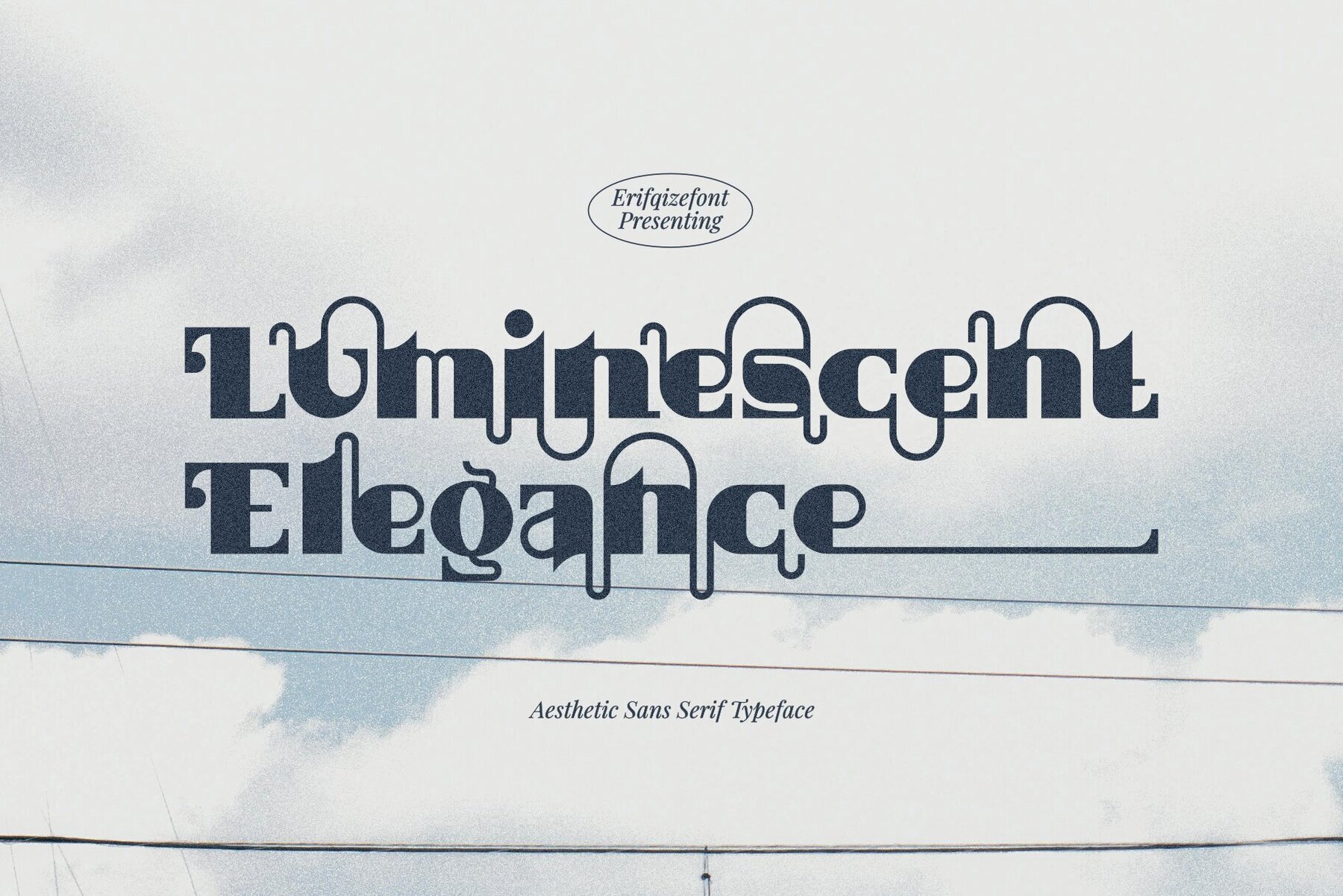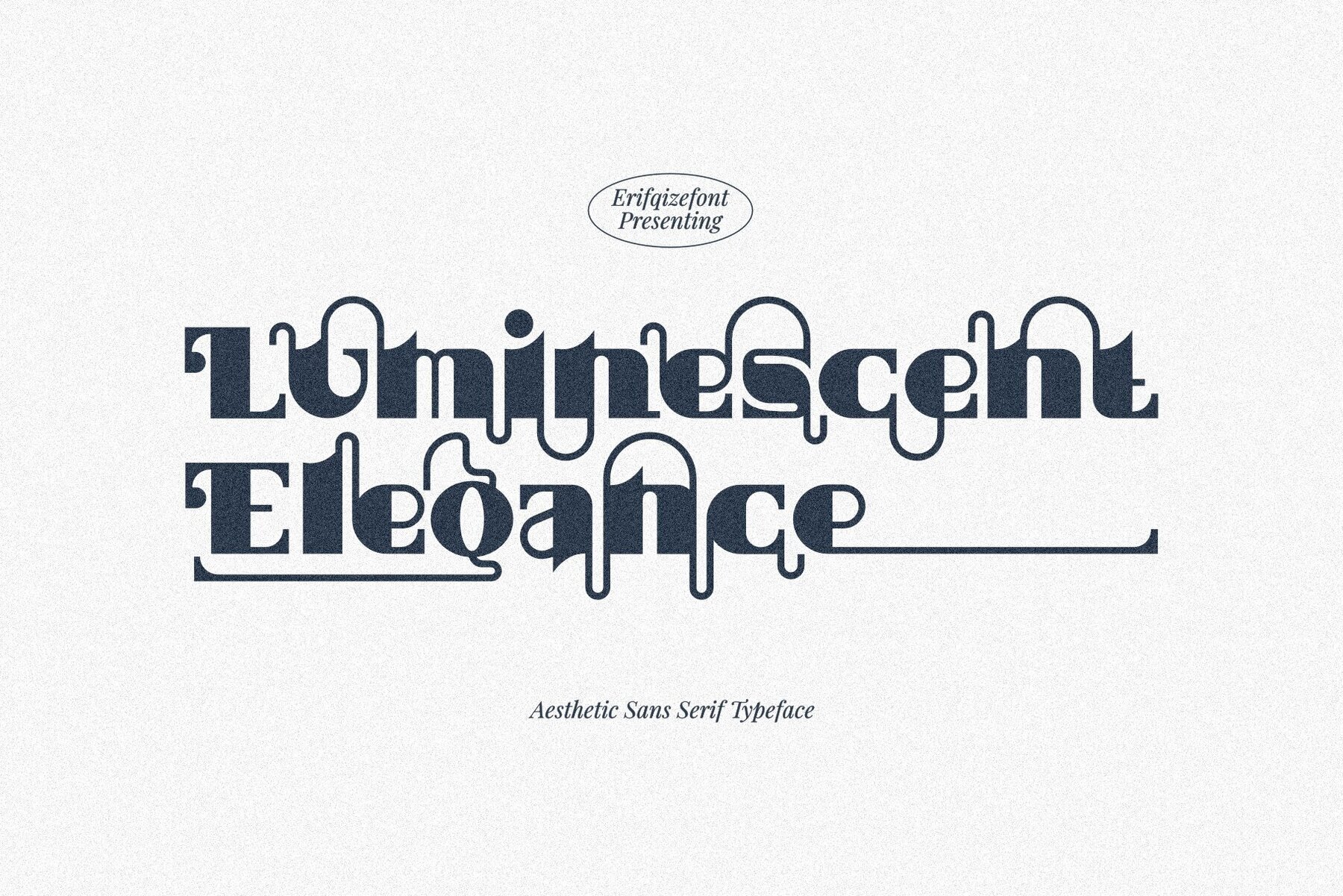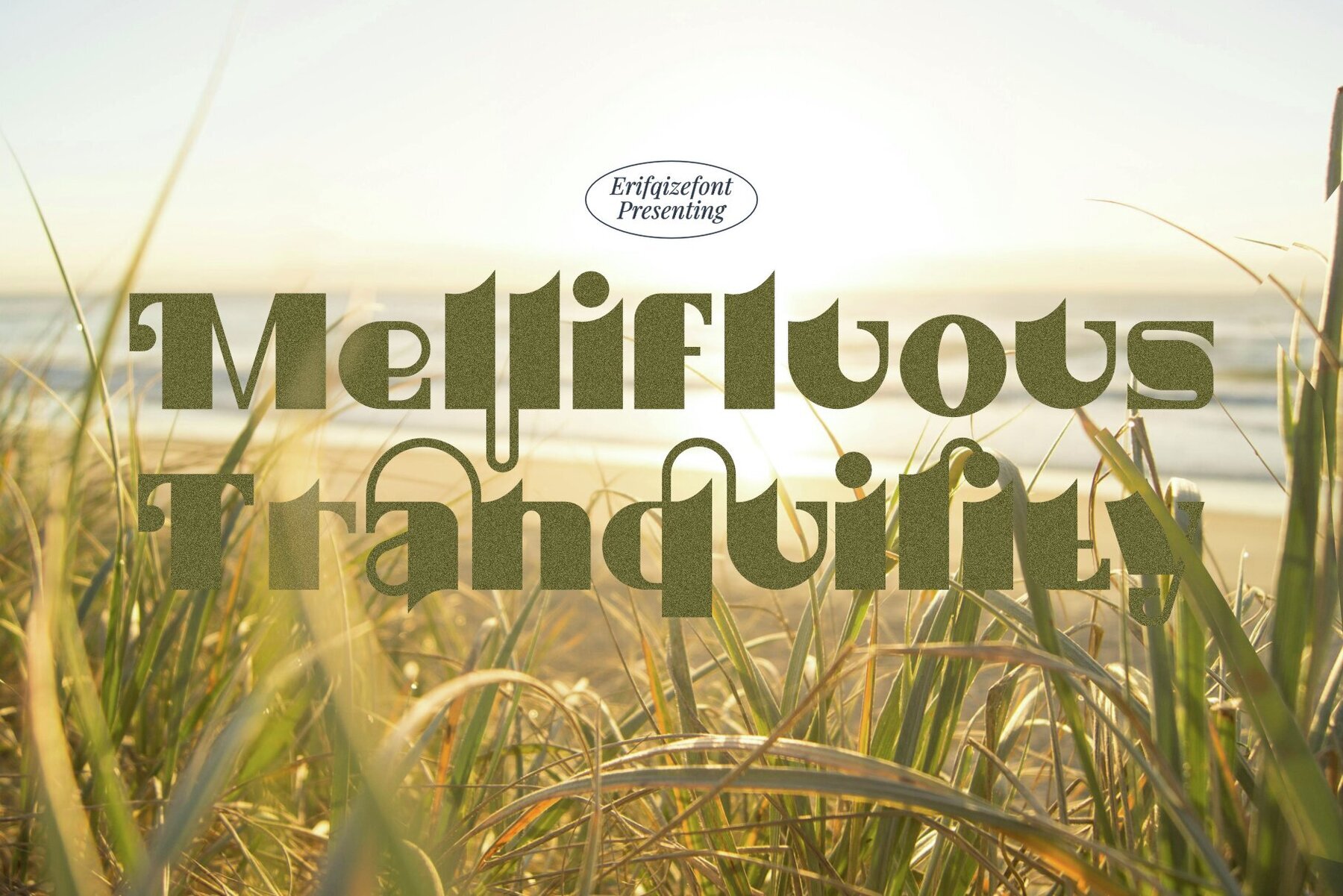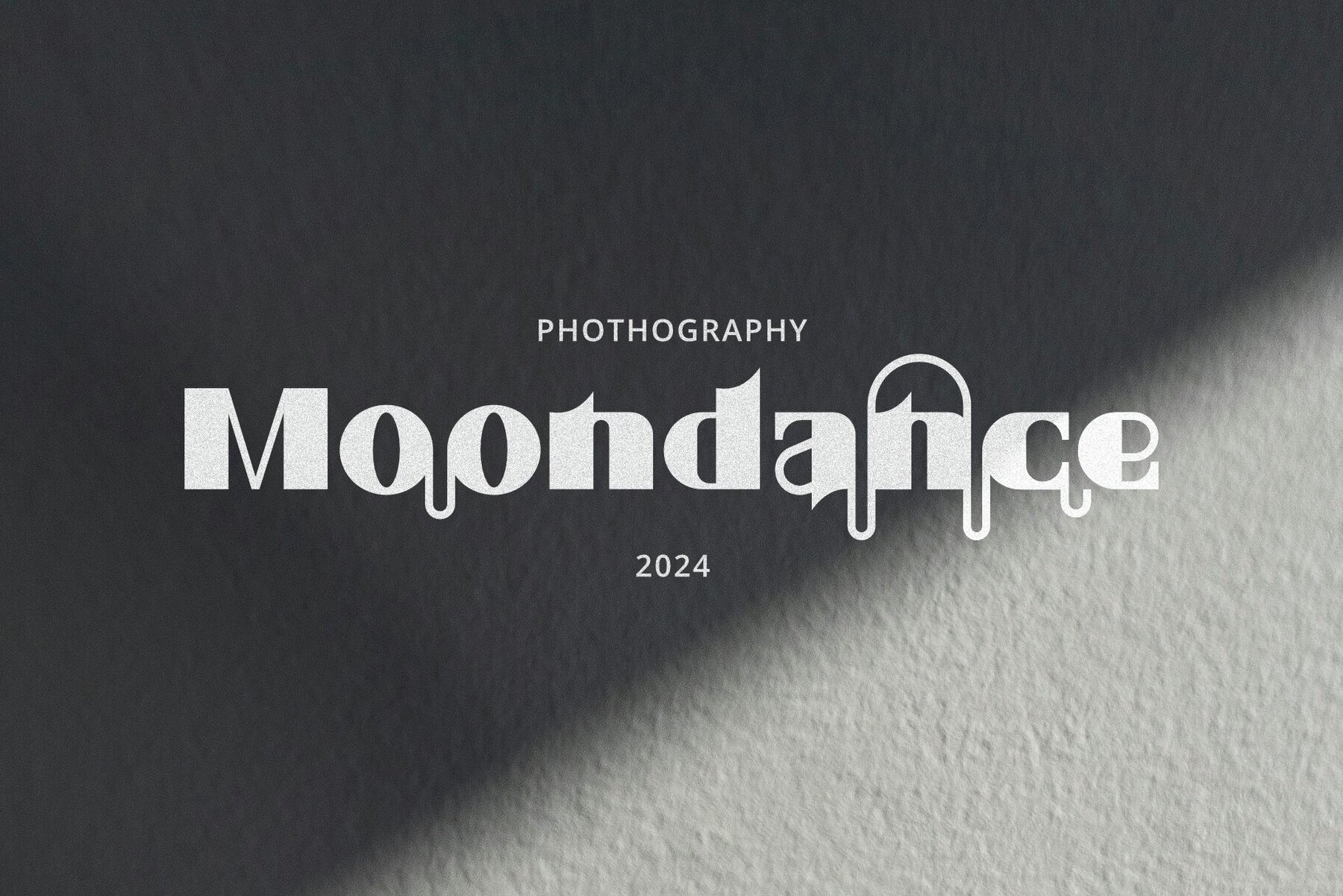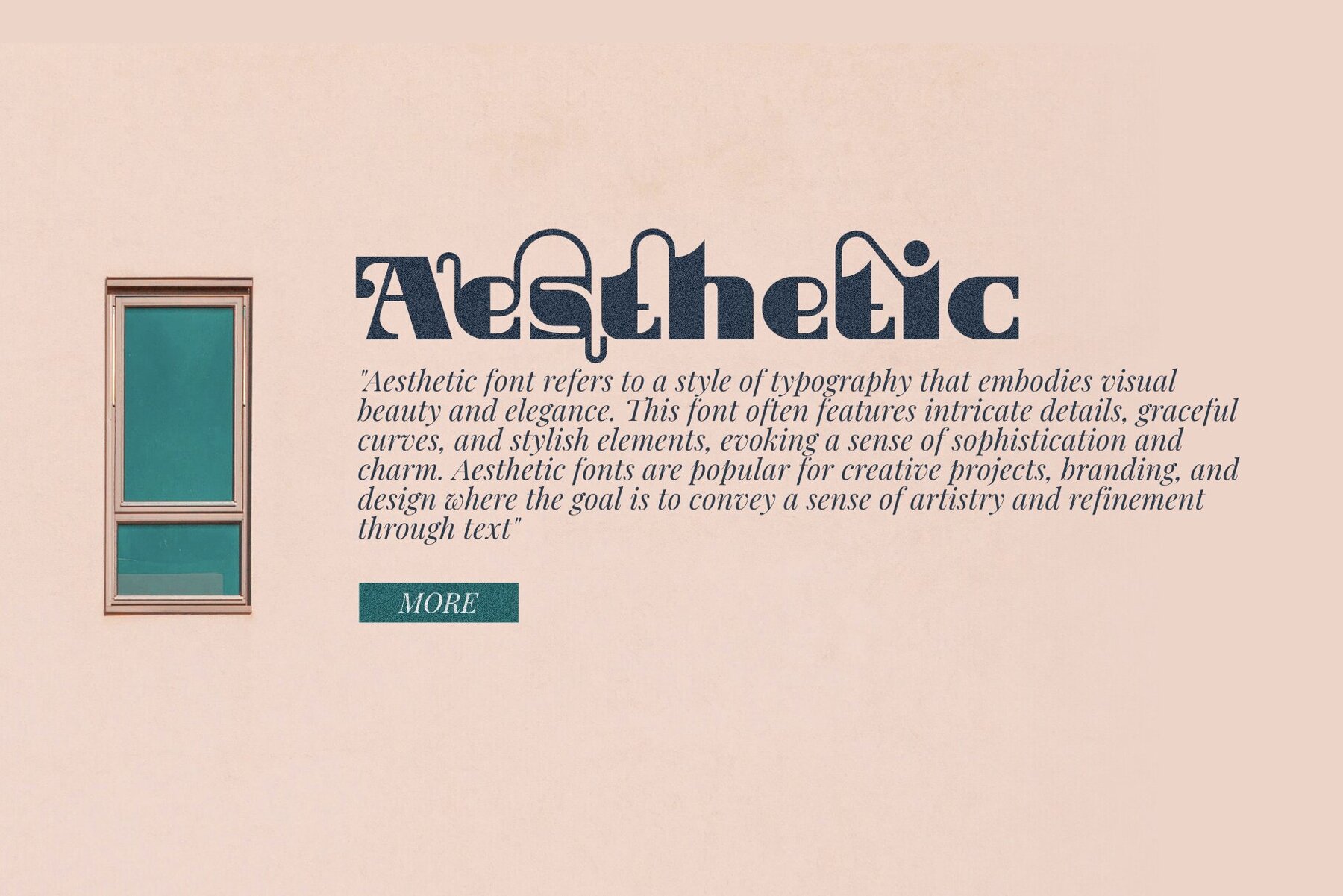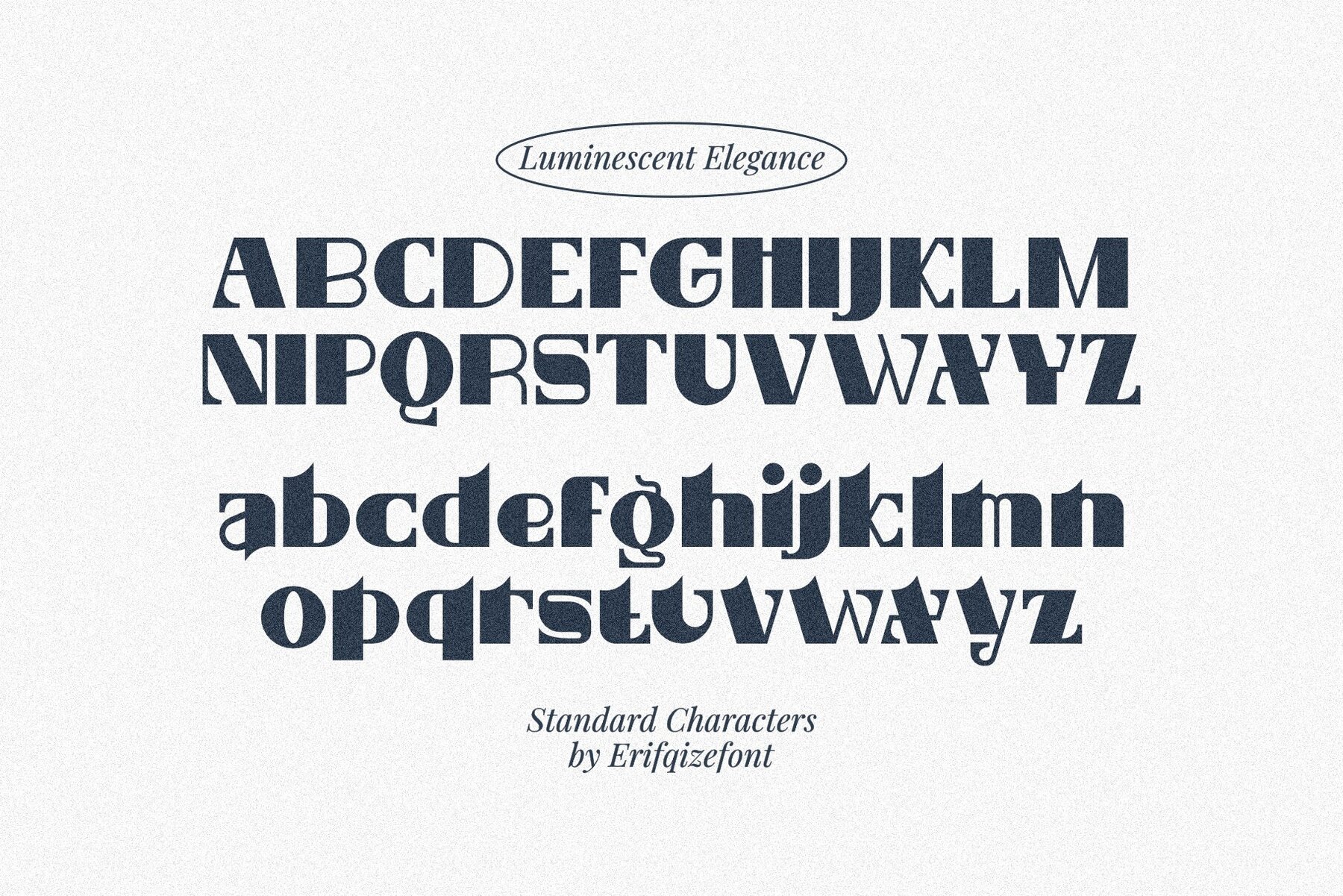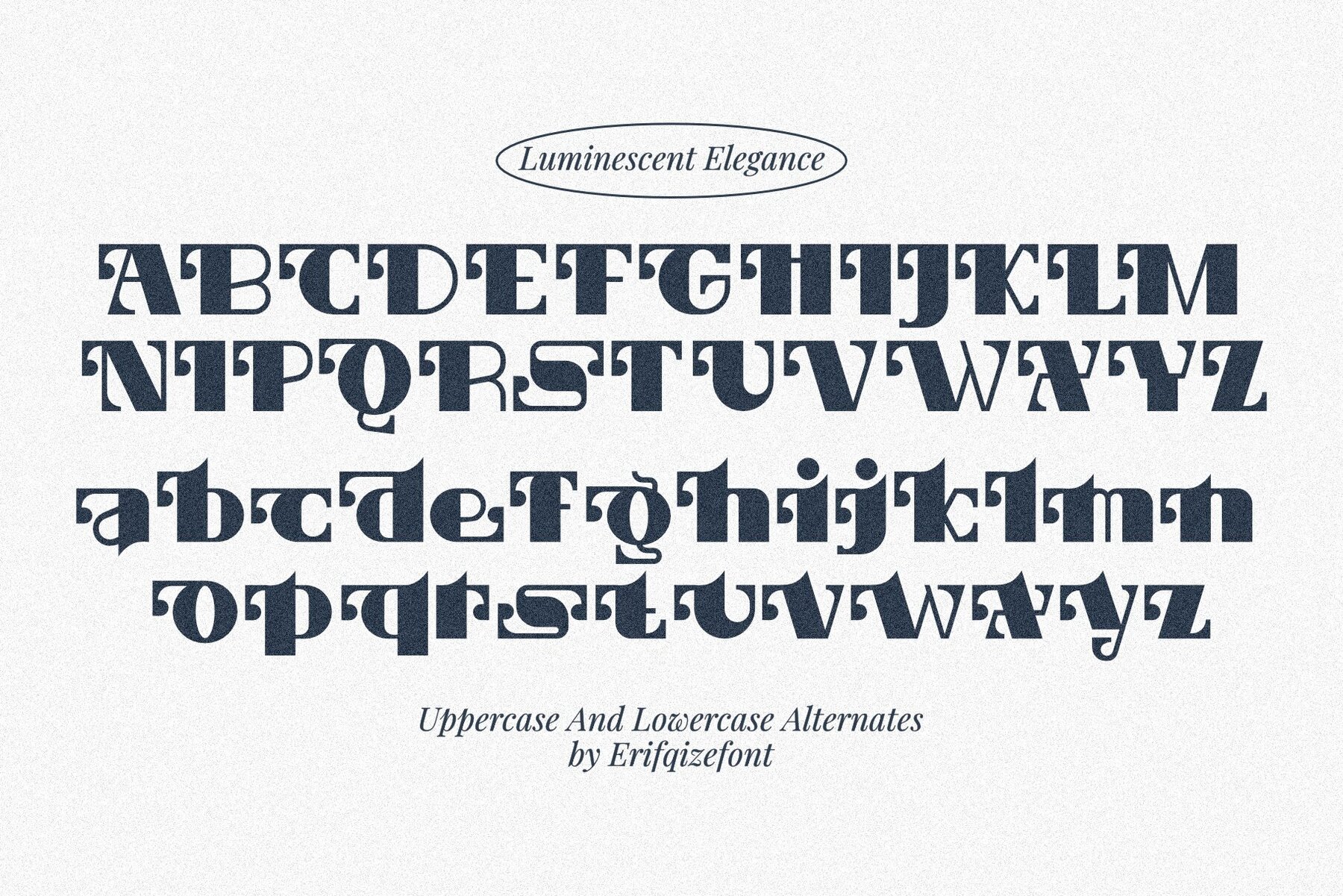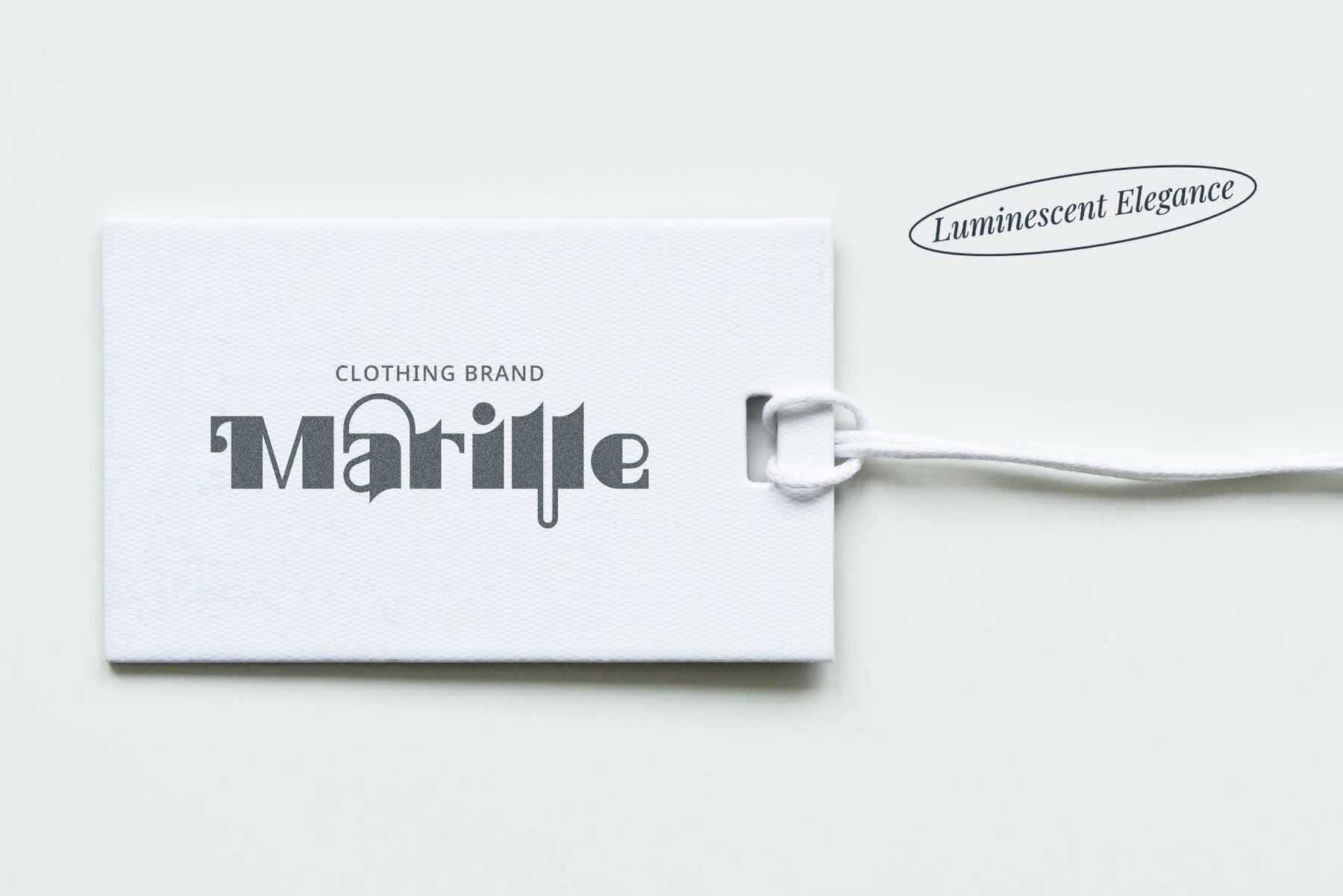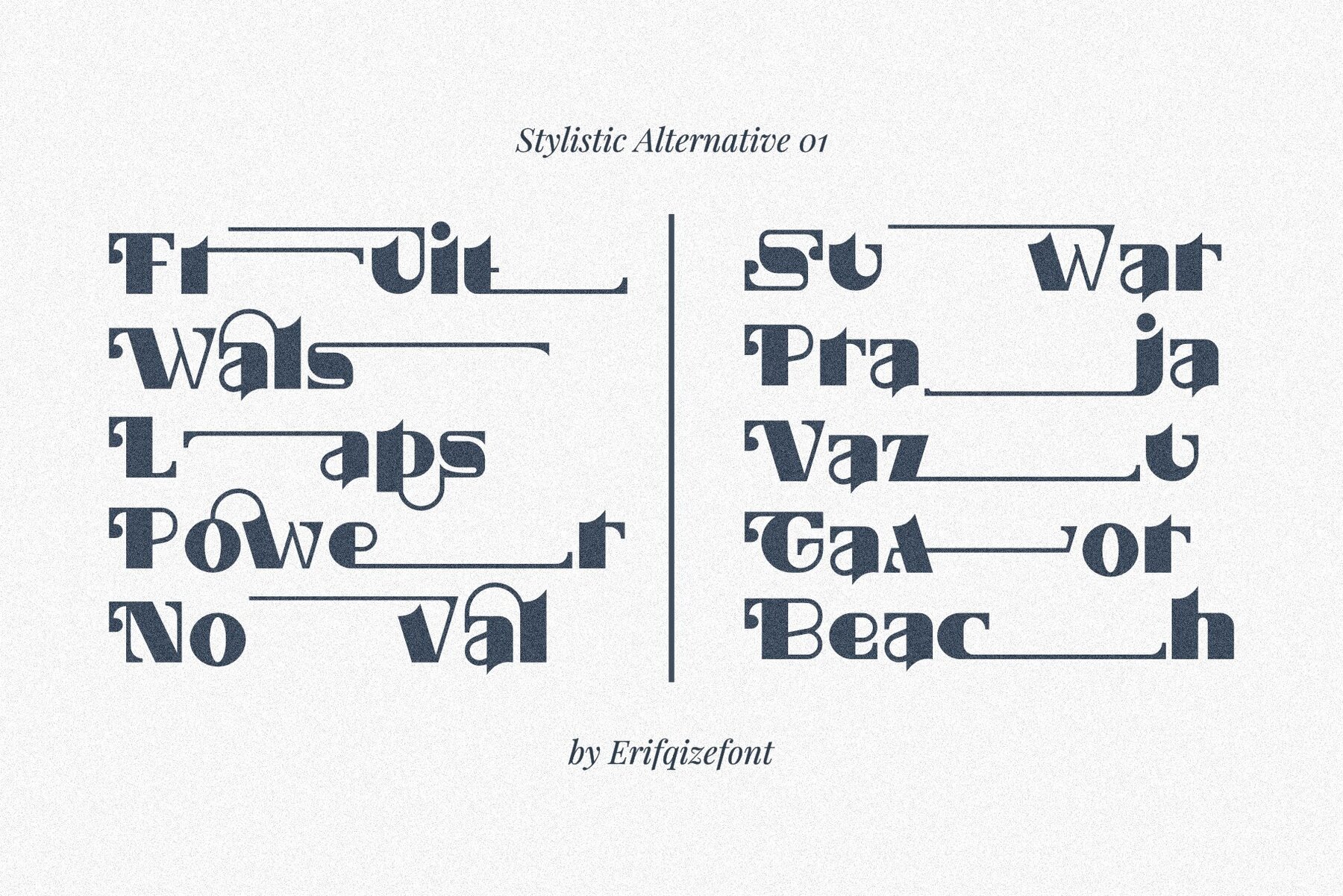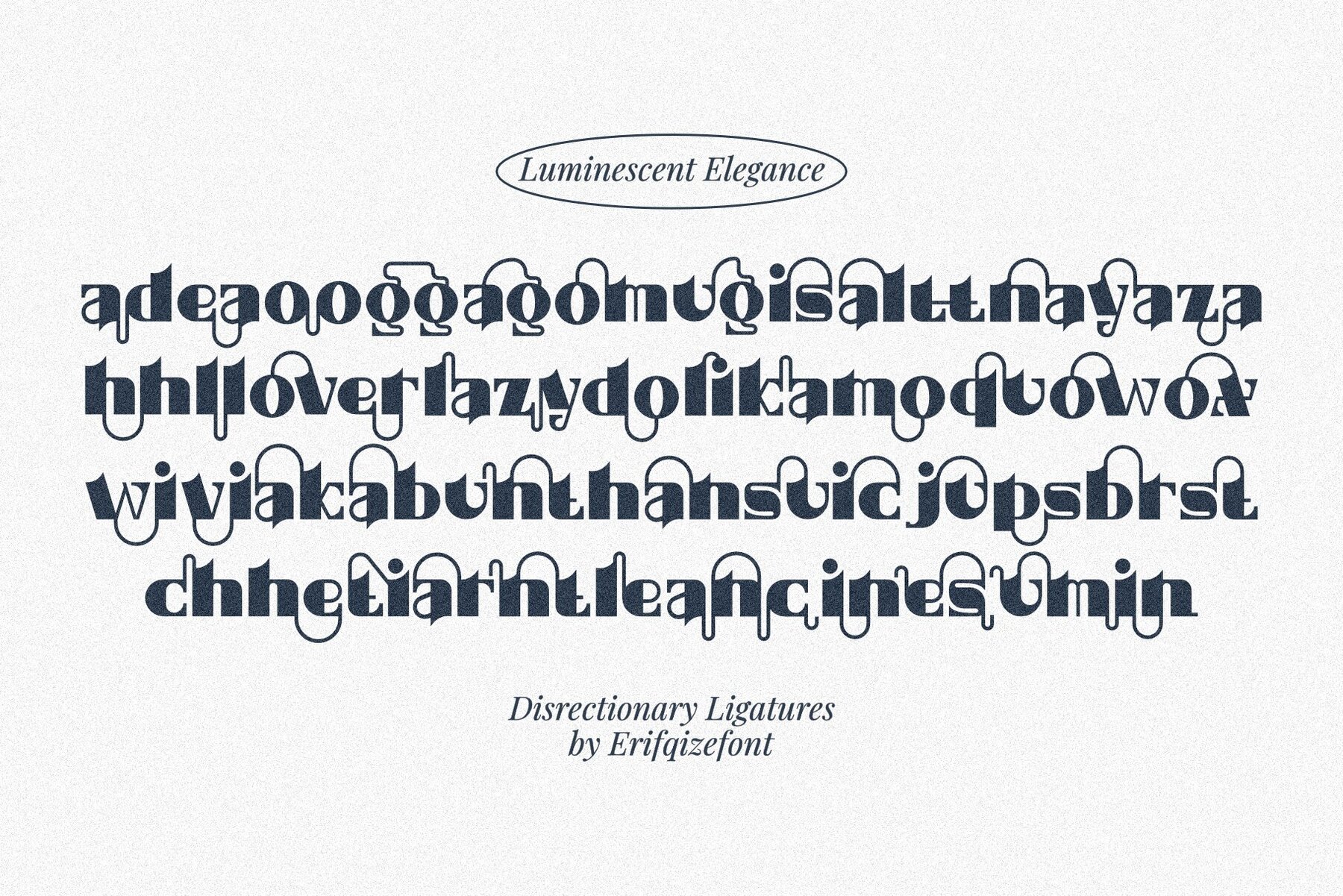
Luminescent Elegance Font
Luminescent Elegance
Discover Luminescent Elegance—a modern, elegant sans-serif font that brings a refined touch to any creative endeavor. Its sophisticated design makes it an ideal choice for advertising, branding, logotypes, packaging, titles, headlines, and editorial design. This font seamlessly combines style with versatility to elevate your projects with understated elegance. With Luminescent Elegance, you're equipped to create timeless beauty and modern sophistication in your designs. Let it transform your work into masterpieces with its unique charm.Luminescent Elegance: The Modern Aesthetic Sans-Serif Font
Features of Luminescent Elegance